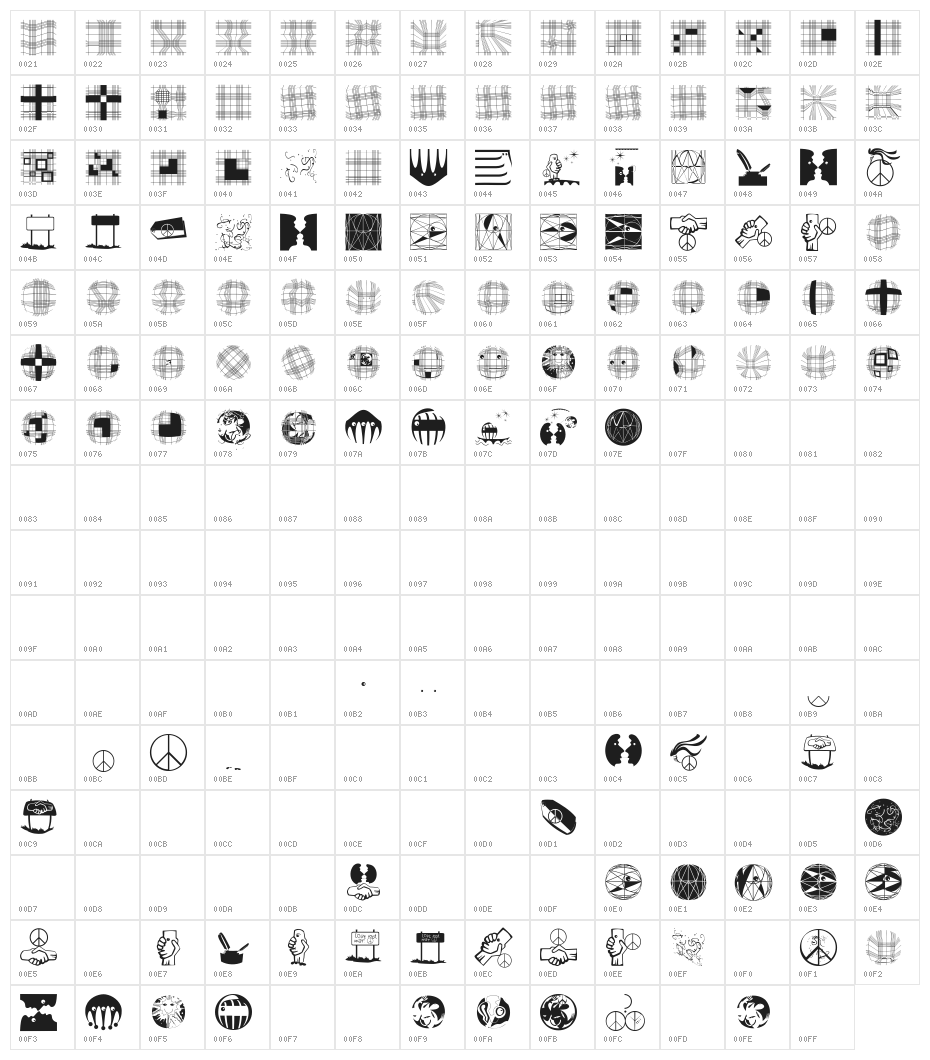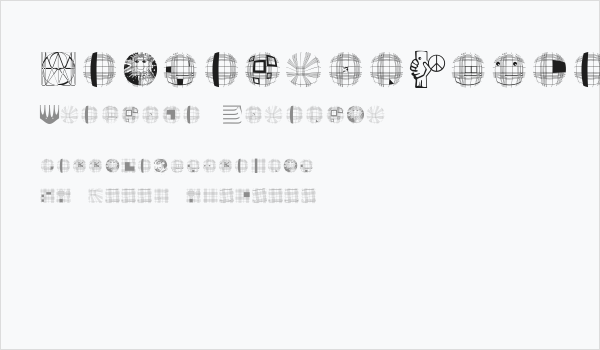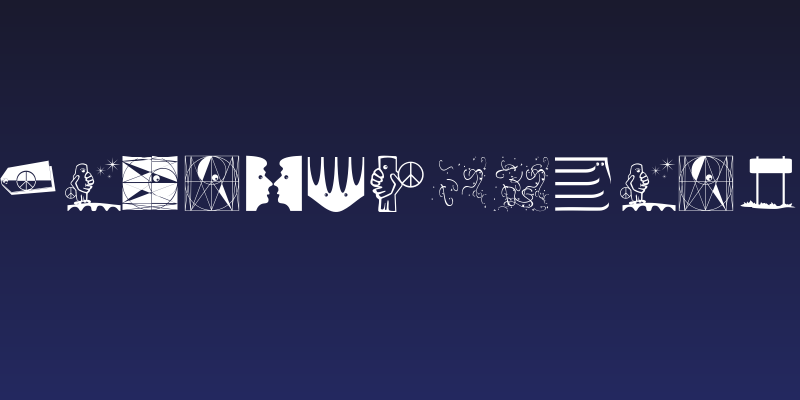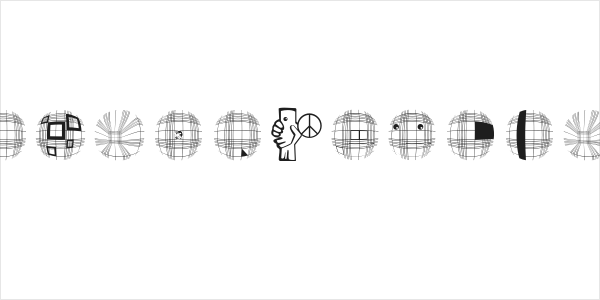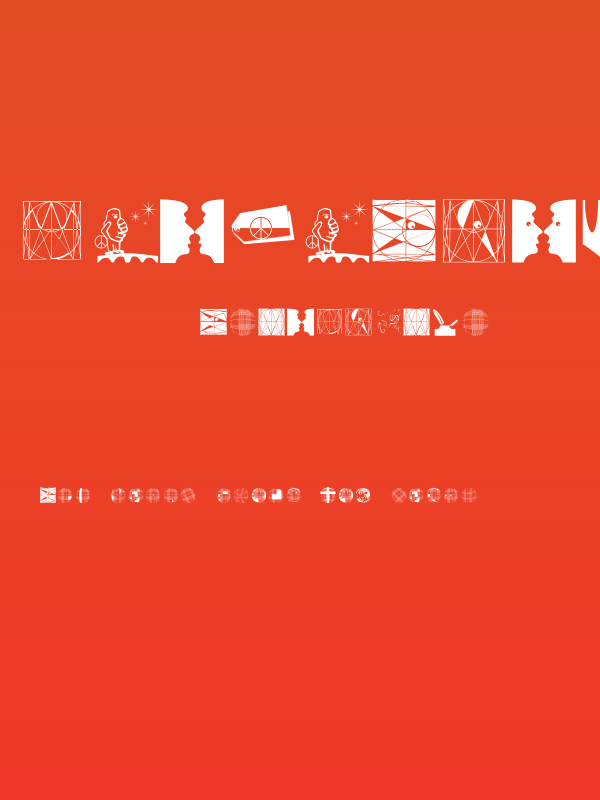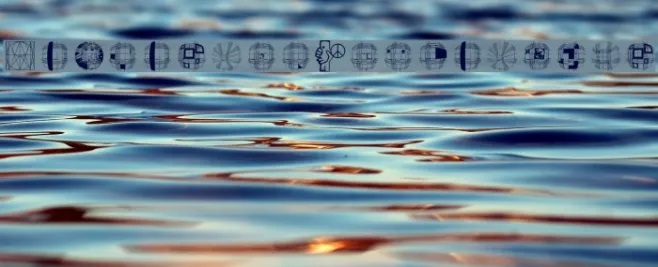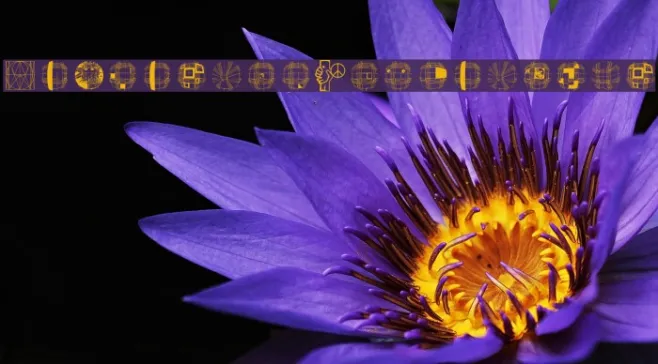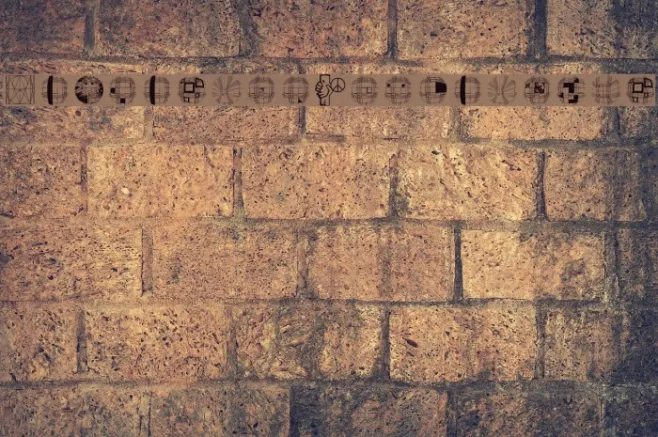
GeometricWanderlust Font
GeometricWanderlust Description
A decorative display font composed of abstract geometric shapes, intricate linework, and symbolic illustrations within square and circular frames, featuring a mix of organic and structured elements.
| Overall Style | Decorative, Abstract, Modern |
| Use Case | Logos, Headlines, Artistic projects, Visual identities |
| Proposed Projects | Posters, album covers, editorial illustrations, branding for creative industries, event graphics. |